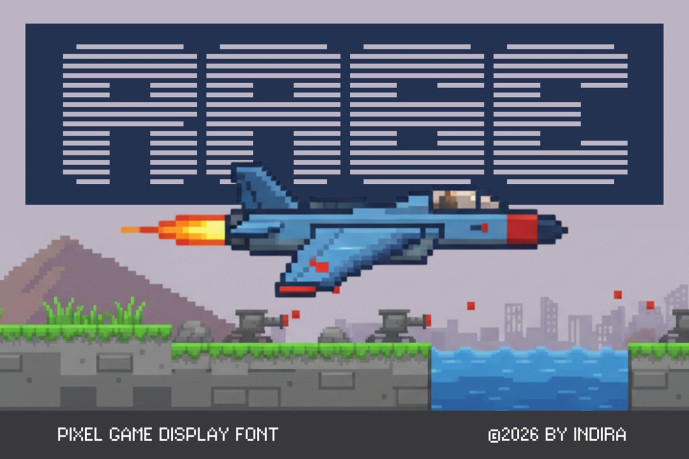
Rage Font
Rage Font is a high-energy pixel typeface designed to capture pure intensity and fast-paced gaming action. Built with a striking horizontal-banded bitmap style, this display font creates a strong sense of movement, like lines of speed flashing across the screen. Its aggressive and dynamic form makes it perfect for action games, racing titles, combat interfaces, and any visuals that need a feeling of power, competition, and adrenaline.
Created for gamers and designers seeking a bold impact, Rage brings a fresh, modern edge to pixel fonts. Whether designing a game’s user interface, streaming overlays, coding visuals, or building a digital brand, this typeface exudes a fierce personality that instantly stands out. With its fast-paced aesthetic and arcade-inspired energy, Rage helps you create intense, immersive, and game-ready designs.